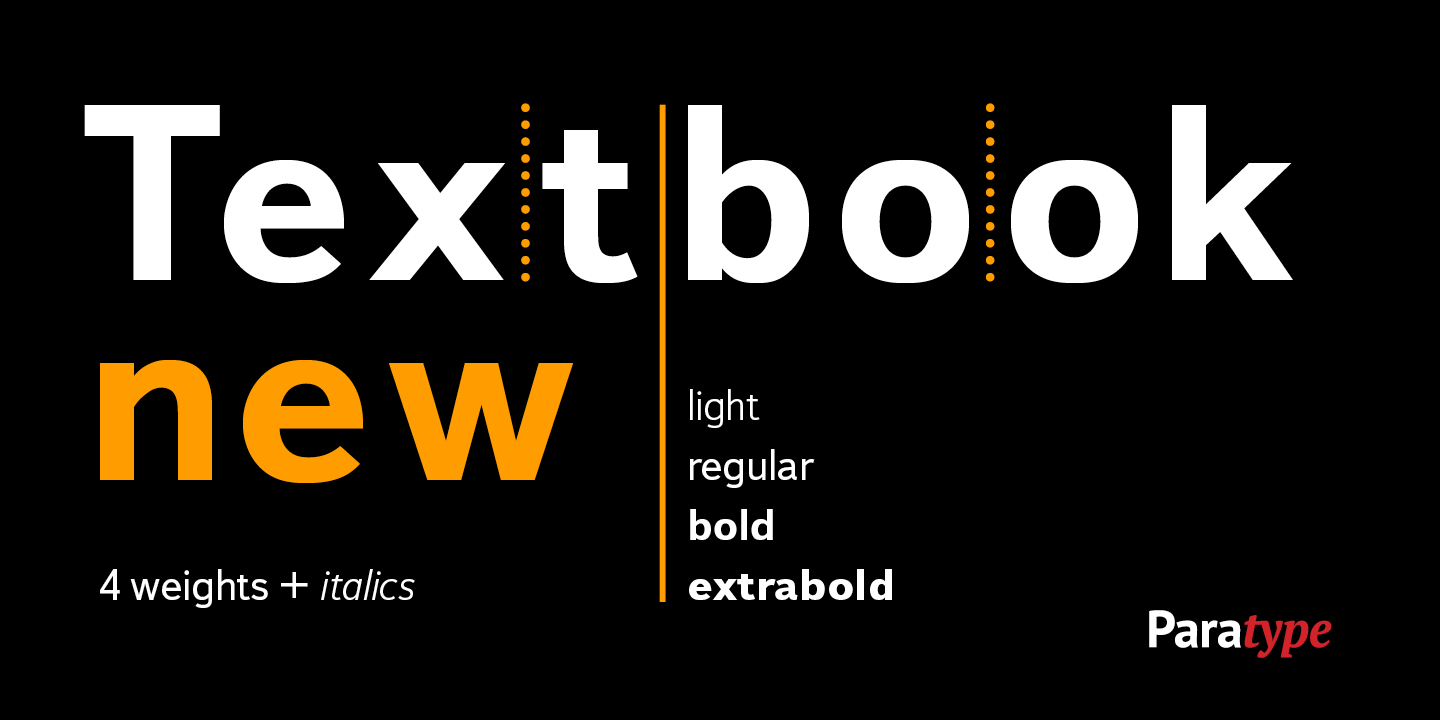
Textbook New Font is perfect for educational textbook layouts, academic publication designs, scholarly journal articles, university course materials, research paper formatting, student handbook designs, educational software interfaces, library system displays, academic conference presentations, and institutional learning materials that require exceptional readability and scholarly authority.
This font is exciting because it represents the evolution of educational typography with modernized letterforms that enhance reading comprehension while maintaining the trusted reliability and academic credibility essential for serious educational content. Textbook New Font features optimized character spacing and refined proportions specifically designed to reduce reading fatigue and improve information retention across extended study sessions.
Textbook New Font family includes Regular, Bold, Light, Medium, Italic, Condensed, Display, and Caption versions, plus academic symbols, mathematical operators, scientific notation, and educational punctuation marks that enhance the scholarly aesthetic and provide comprehensive solutions for academic and educational publishing applications.
For educational and academic design projects, Textbook New Font Free Download delivers unmatched readability and scholarly credibility. The font's optimized letterforms and educational character make it perfect for publishers, educational institutions, and academic organizations seeking to communicate knowledge, authority, and learning excellence. Its refined design appeals to students and educators who require clear, comfortable reading experiences. The character set includes academic symbols and notation specifically designed for educational documentation and scholarly publications. Professional designers appreciate its exceptional legibility in long-form content and its ability to convey both academic authority and modern accessibility while maintaining excellent readability across textbooks, educational materials, and academic publishing, making it essential for organizations that want to enhance learning outcomes and communicate educational excellence in today's competitive academic landscape.